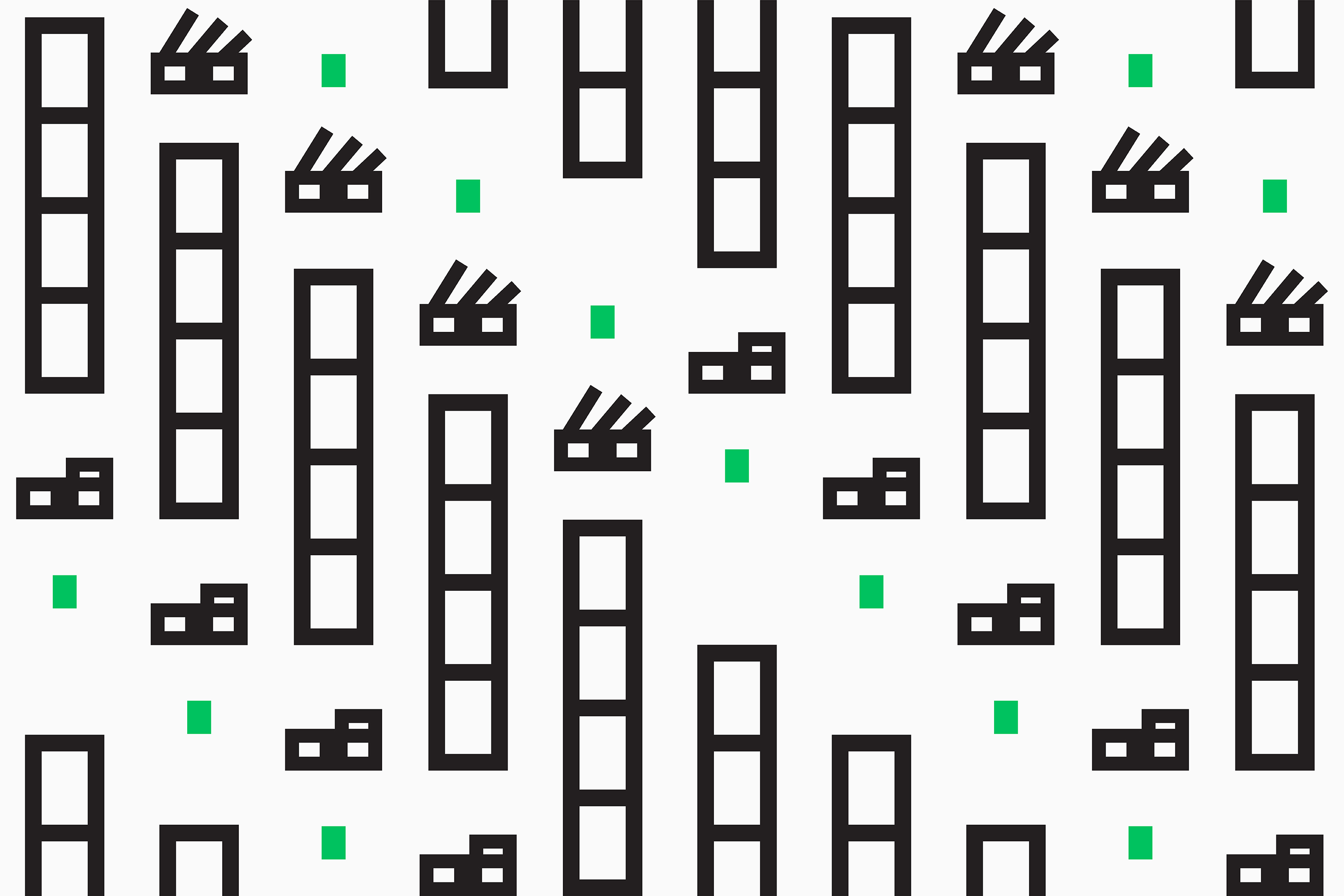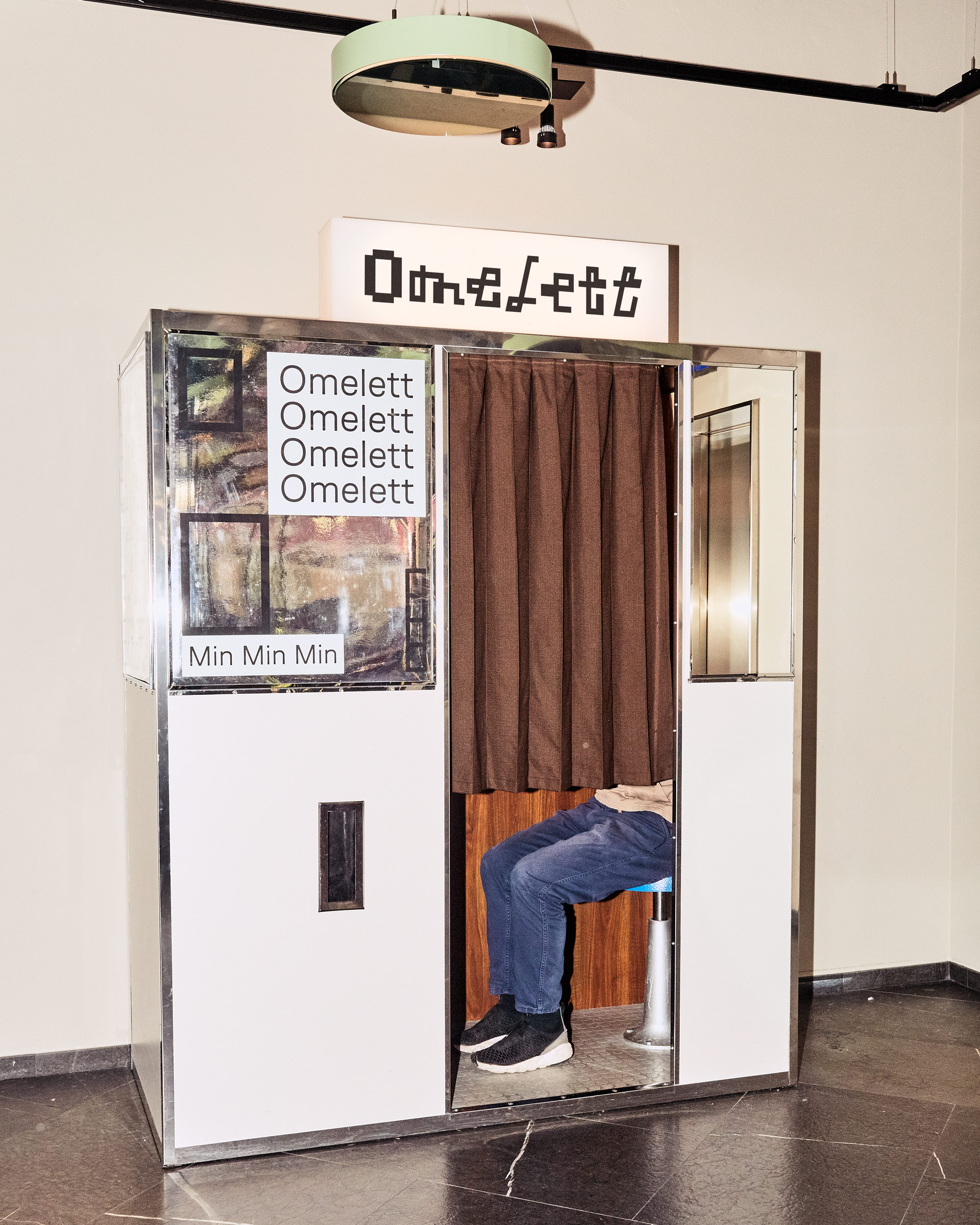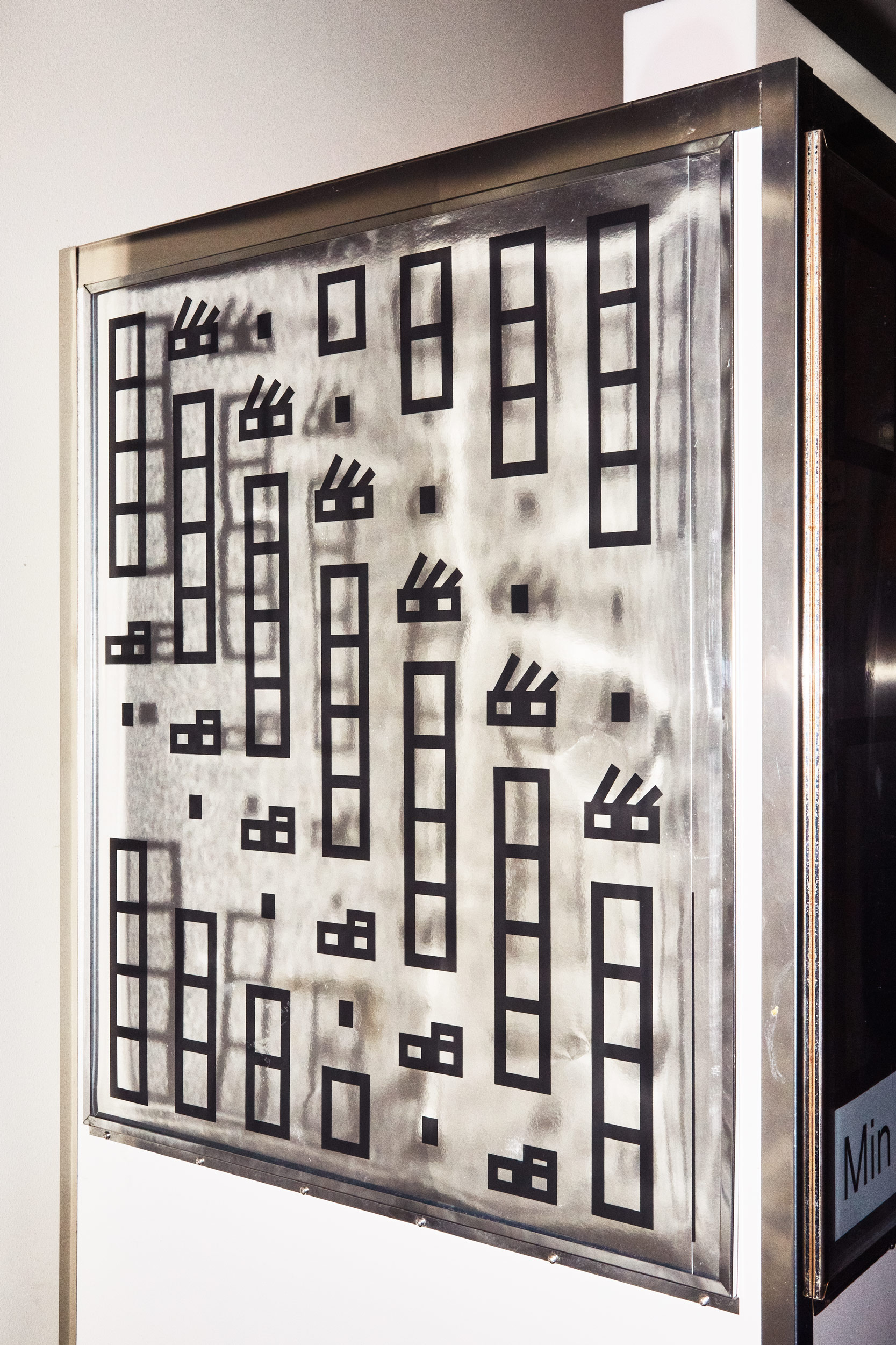
Back story: When Stockholm design studio Bedow was tasked with creating the name and visual identity for a photo booth company, it gave it quite an unexpected name, Omelett. Founded by two local photographers who bought an old analog photo booth and rented it out for events and nightclubs, they wanted to recreate that experience with more machines, and so built their own digital versions, in an analog style.
The identity and its various applications (animations, illustrations, merchandise, posters, and clothing) created by Bedow revolves around a bespoke typeface (also called Omelett) that comes in four different versions, or “poses,” instead of different weights. “Modern branding doesn’t really have a logotype, it’s more of a system,” says Bedow founder Perniclas Bedow. “So this typeface acts as a logotype as well, and instead of having four weights or additional italics, it changes with different poses.”
Why is it called Omelett? The name derives from “Say Omelett,” the Swedish version of “Say Cheese.”
What are its distinguishing characteristics? Each glyph has a frame and has four different “poses.” According to Bedow, it’s a “vain” typeface, and “intentionally a bit ugly,” he says. “It looks a bit strange, so that’s the fun thing about it.
“Ugly is the embryo of beautiful—if something is ugly or beautiful, that’s just a temporary individual condition. The more you look at something, the more you start to like it. The first time you see something, you’re afraid of it; the second time you might think it’s ugly; the third time you might think it’s interesting, then you might hate it again. So we aim forward, aim for the ugly, then you adapt to it.”
The typeface was created in black-and-white, just like old photo booths. “We were working with “playful” as a key word, but not “playful” as in bright with lots of colors,” says Bedow. “It’s more the identity itself that’s playful, and you can execute that in lots of different ways.”
What should I use it for? Bedow is currently working on creating Omelett as a full typeface, but it isn’t available for public use just yet. Its strangeness makes it a great display typeface, but not ideal for longer passages of text. “It’s more a branding thing, it works very well on the T-shirts for example,” says Bedow. “It’s not so practical.”
What other typefaces does it work well with? Throughout the Omelett branding, the eponymous typeface is used alongside Swiss foundry Luzi Type’s Faro Smile font.“We like that it has details that make the letters smile,” says Bedow, who adds that the sans serif fits well alongside Omelett both aesthetically, and in terms of aligning with the wider brand narrative. Other similarly simple, characterful sans serifs would also be a good counterpoint to the spiky, impactful poser font Omelett.